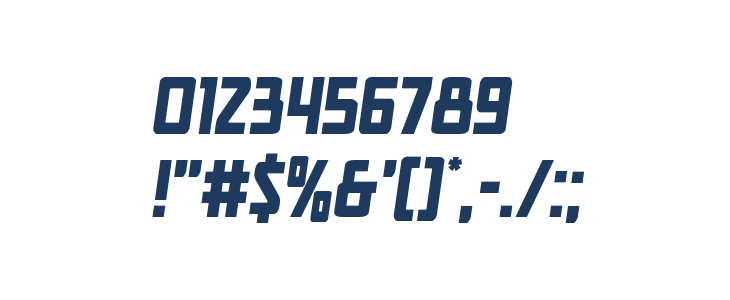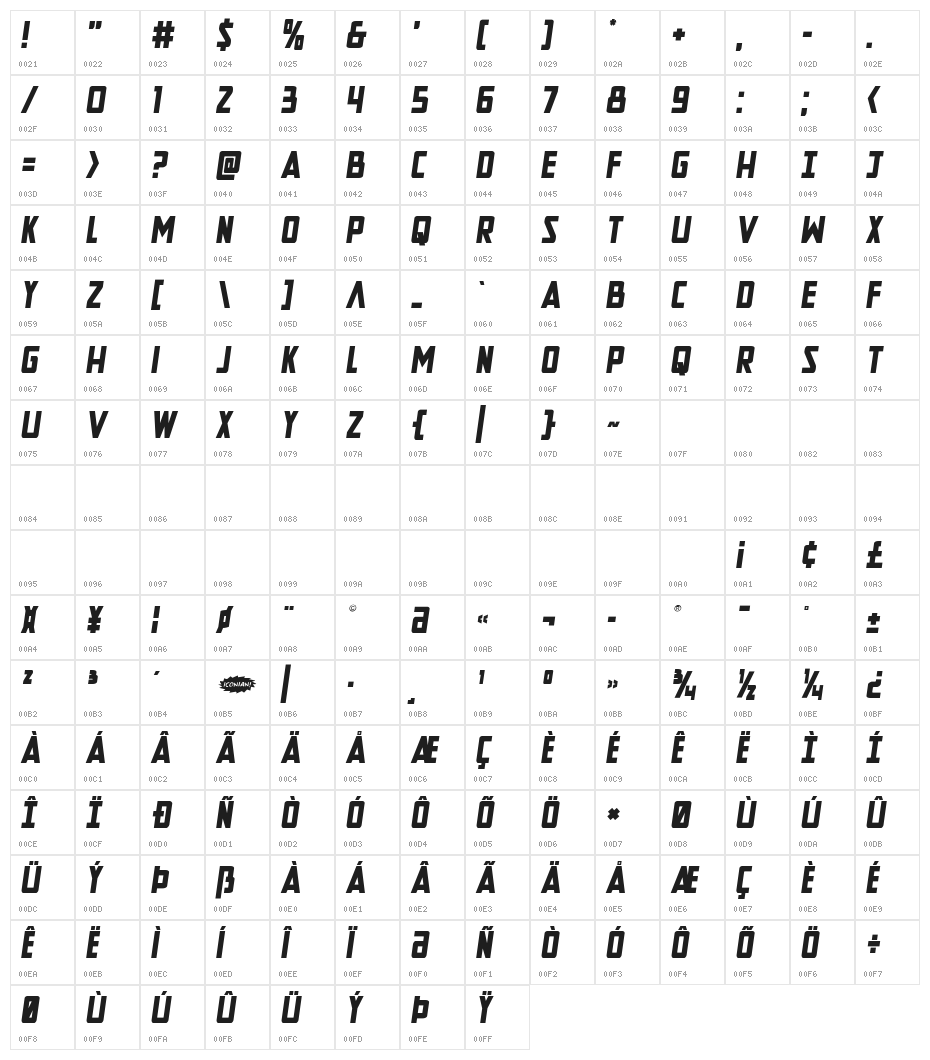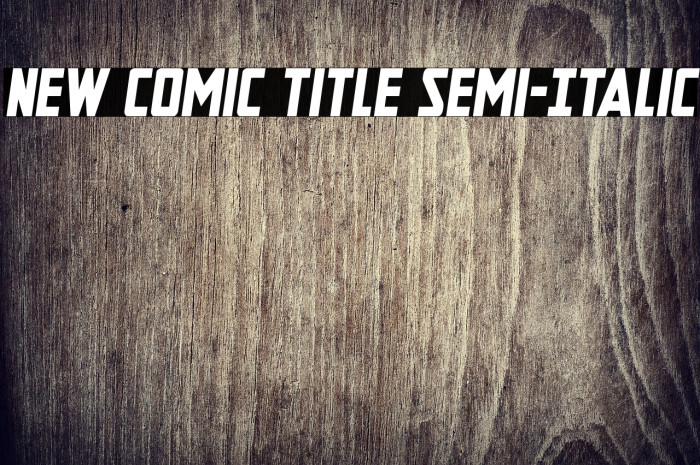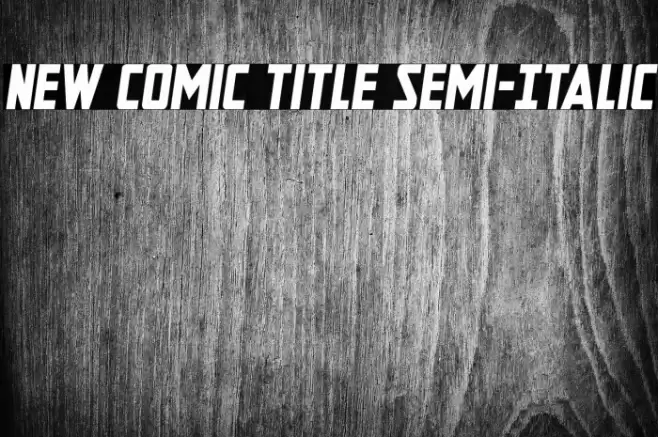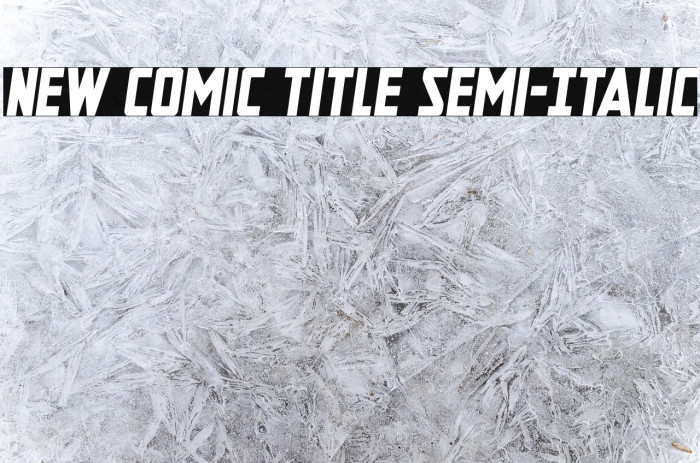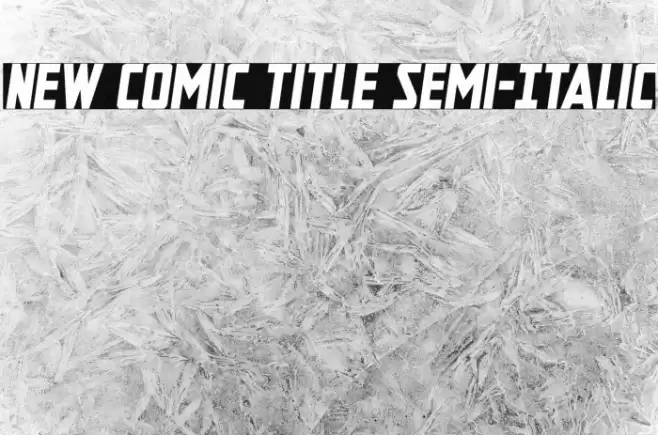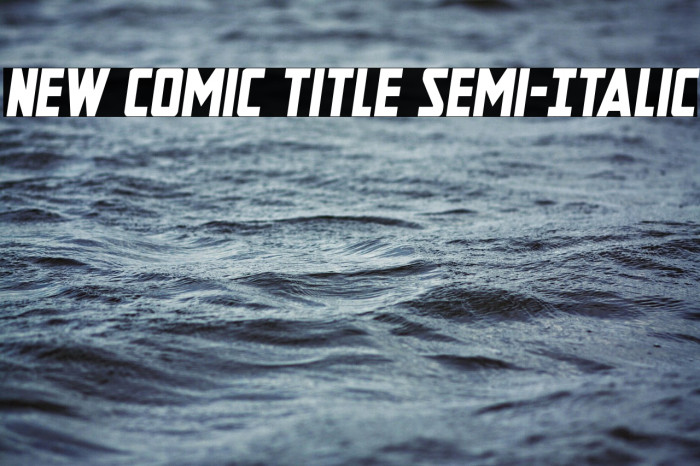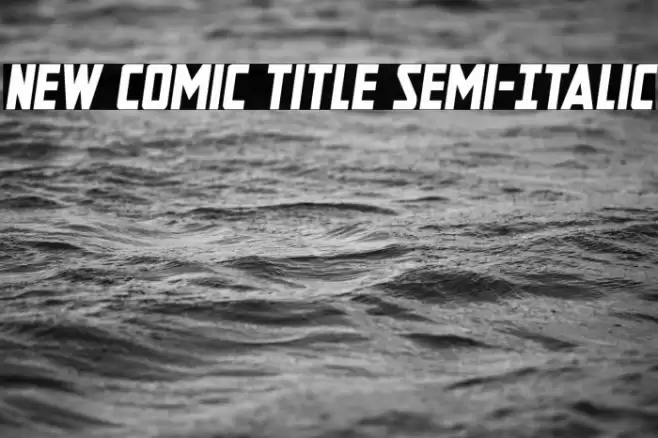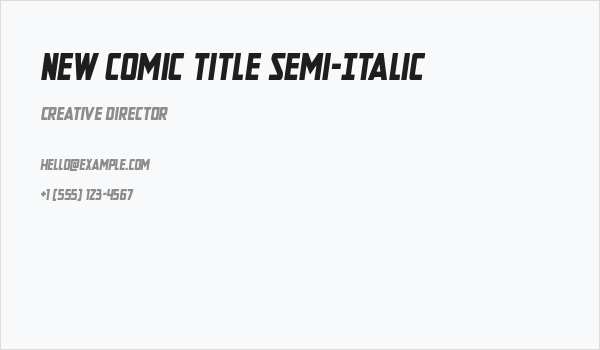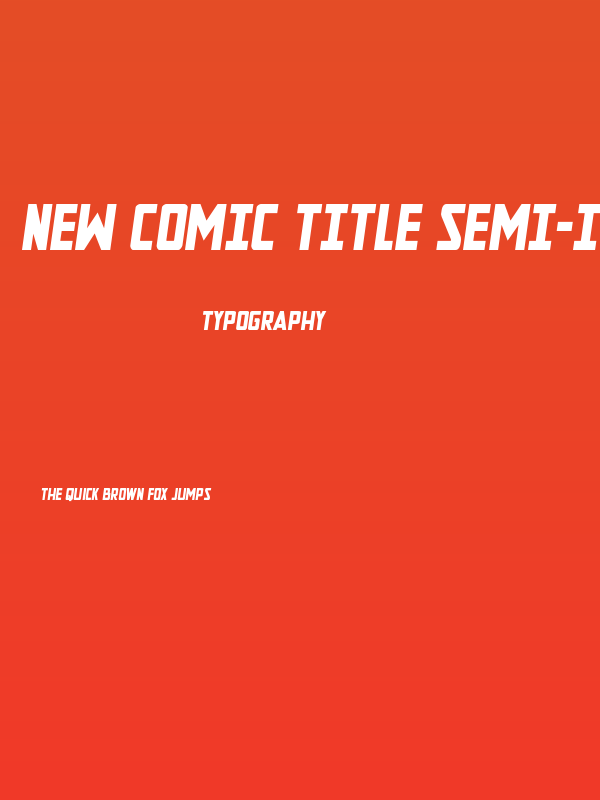
New Comic Title Semi-Italic Font
New Comic Title Semi-Italic Description
This font features a bold and dynamic style with a semi-italic slant, giving it a sense of movement and energy. The characters are robust and slightly condensed, making them ideal for impactful headlines and titles. The strokes are consistent in thickness, providing a uniform appearance across all characters. The angular design of the letters adds a modern and edgy feel, while the slight italicization introduces a playful and informal touch. The numerals and special characters maintain the same bold and angular style, ensuring cohesiveness throughout the font set.
| Proposed Projects | Ideal for comic book titles, posters, advertising, and any project requiring a bold and energetic typeface. |